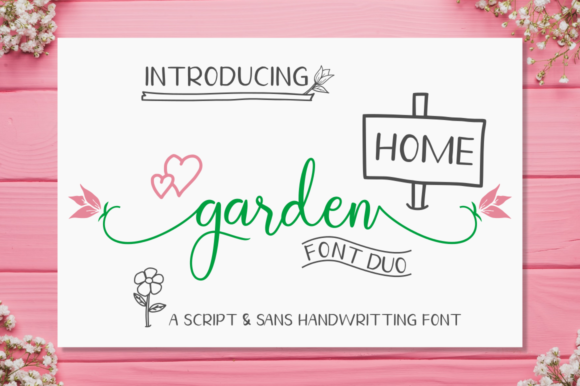
Homegarden Duo Font
Journey through the realm of handwritten elegance with Homegarden Duo Font, a mesmerizing script font duo that captivates with its free-flowing strokes and enchanting swashes. This stunning creation by kammaqsum invites you to embrace the art of personalized expression and embark on a design odyssey like no other.
Indulge in the beauty of Homegarden's primary script font, a symphony of graceful curves and elegant lines that dance across the page. Its fluid motion and subtle variations evoke a sense of authenticity and charm, adding a touch of sophistication to your designs. Whether you're crafting a heartfelt letter, designing a captivating social media post, or creating a stunning invitation, Homegarden's primary script font will elevate your words with a touch of timeless elegance.
Unleash your creativity with Homegarden's captivating swashes, a collection of exquisite flourishes that add a touch of whimsy and delight to your designs. These beautifully crafted swashes are perfect for adding an extra touch of personality to your projects, whether you're designing a whimsical logo, creating a personalized greeting card, or crafting a magical poster. Let your imagination soar as you explore the endless possibilities of Homegarden's swashes, transforming ordinary text into extraordinary works of art.
Complete your design journey with Homegarden's delightful extra doodles, a treasure trove of hand-drawn elements that add a touch of playfulness and charm to your projects. From delicate hearts and stars to whimsical flowers and swirls, these adorable doodles are perfect for adding a personal touch to your designs. Whether you're creating a cheerful greeting card, designing a playful social media post, or crafting a unique invitation, Homegarden's extra doodles will bring a smile to your face and add a touch of joy to your designs.
Homegarden Duo Font is more than just a collection of fonts; it's an invitation to embark on a creative adventure, where your imagination takes center stage. With its primary script font, enchanting swashes, and delightful extra doodles, Homegarden empowers you to create designs that resonate with your unique style and vision. Whether you're a seasoned designer or just starting your creative journey, Homegarden Duo Font is the perfect companion, guiding you towards design excellence and helping you turn your creative dreams into a stunning reality.
Immerse yourself in the world of Homegarden Duo Font and discover the boundless possibilities it holds for your next design project. Let your creativity flourish as you explore the nuances of this captivating font duo, and experience the joy of creating designs that leave a lasting impression.